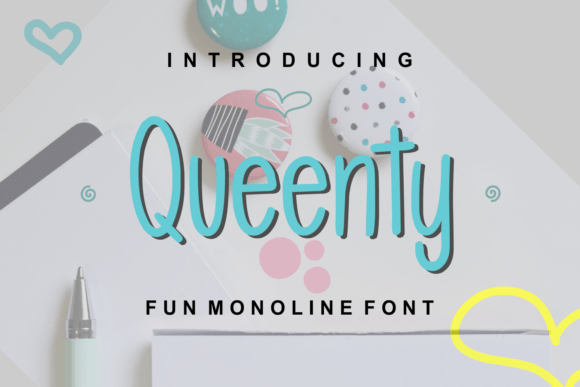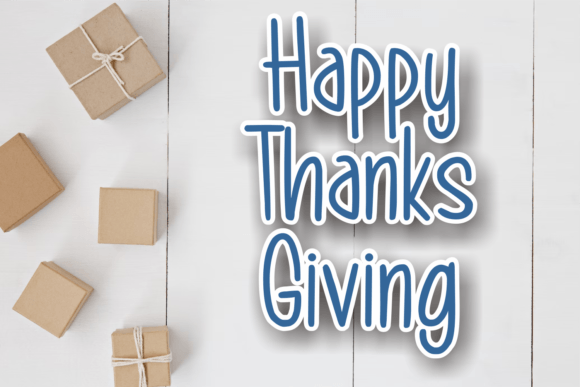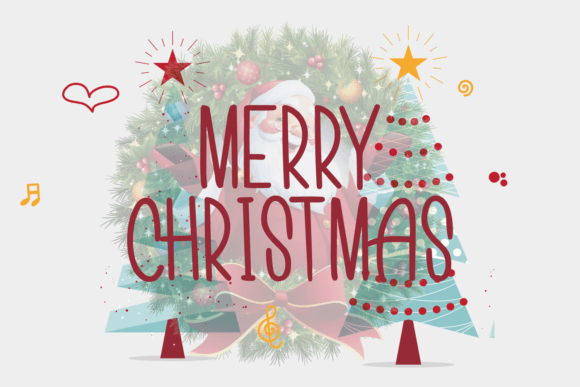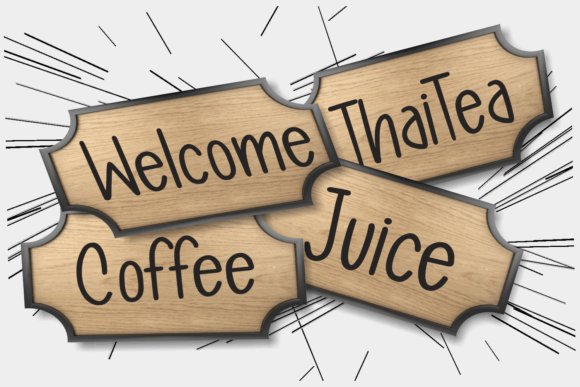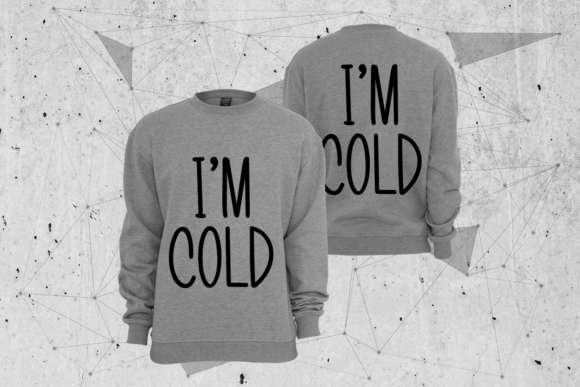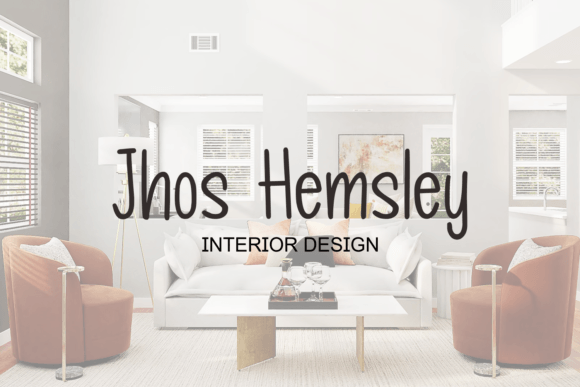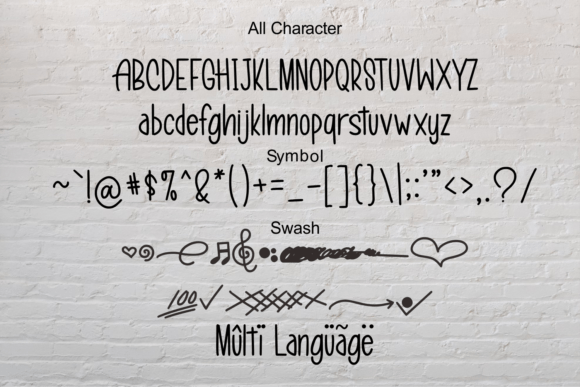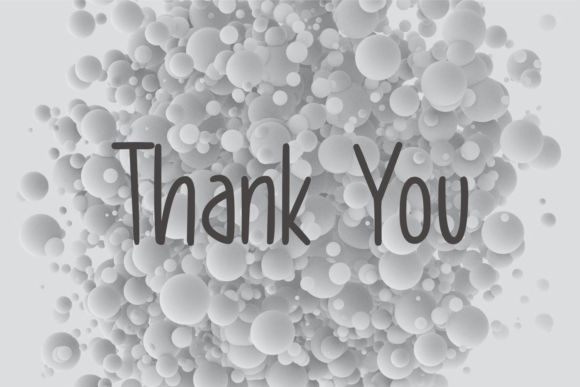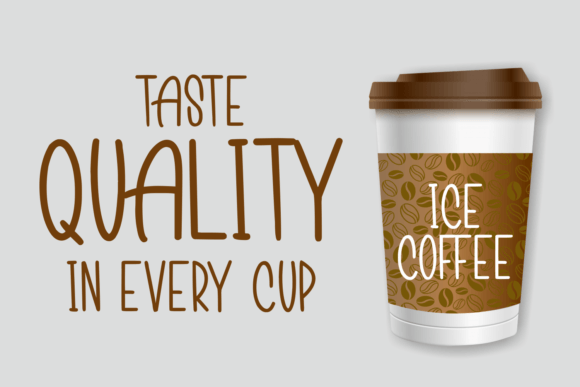
Queenty Font
Queenty Font : A Fun and Versatile Handwritten Font
Queenty is a delightful handwritten font that brings a touch of playfulness and casual charm to your designs. This versatile typeface is perfect for a wide range of creative applications, from personal projects to professional designs.
Key Features of Queenty Font
• Fun Handwritten Style: Adds a personal and casual touch to your designs
• Simple and Charming: Maintains readability while offering a friendly aesthetic
• Versatile Application: Suitable for various projects across different mediums
Perfect for Multiple Design Projects
Queenty’s adaptability makes it an excellent choice for:
• Branding materials for approachable businesses
• Social media graphics and digital content
• Personal stationery and greeting cards
• Blog headers and casual website designs
• Packaging design for artisanal products
Enhancing Your Creative Vision
With Queenty, you can infuse your designs with a sense of authenticity and approachability. Its handwritten style adds a personal touch that resonates with audiences, making your content more engaging and relatable.
Digital Design Applications
In the digital realm, Queenty shines by adding a friendly and approachable feel to your content. Use it for:
• Engaging blog headers
• Eye-catching social media posts
• Unique email marketing campaigns
• Distinctive website designs for creative professionals
Queenty is more than just a font; it’s a creative tool that brings fun and versatility to your design projects. Its simple yet charming style makes it suitable for a wide range of applications, from casual personal projects to professional designs that require a friendly touch. By incorporating Queenty into your designs, you can create visually appealing and memorable content that engages your audience. Whether you’re a professional designer or someone looking to add a personal touch to your projects, Queenty offers the perfect blend of fun and functionality. Consider pairing Queenty with clean sans-serif fonts for contrast or complementing it with other script fonts for a dynamic typographic palette. This versatility allows you to create designs that are both playful and harmonious across various mediums and industries. Embrace the casual charm of Queenty today and watch as it transforms your creative ideas into engaging and approachable designs. Add this fun handwritten font to your collection and experience the difference it makes in enhancing your projects with its simple yet captivating style!